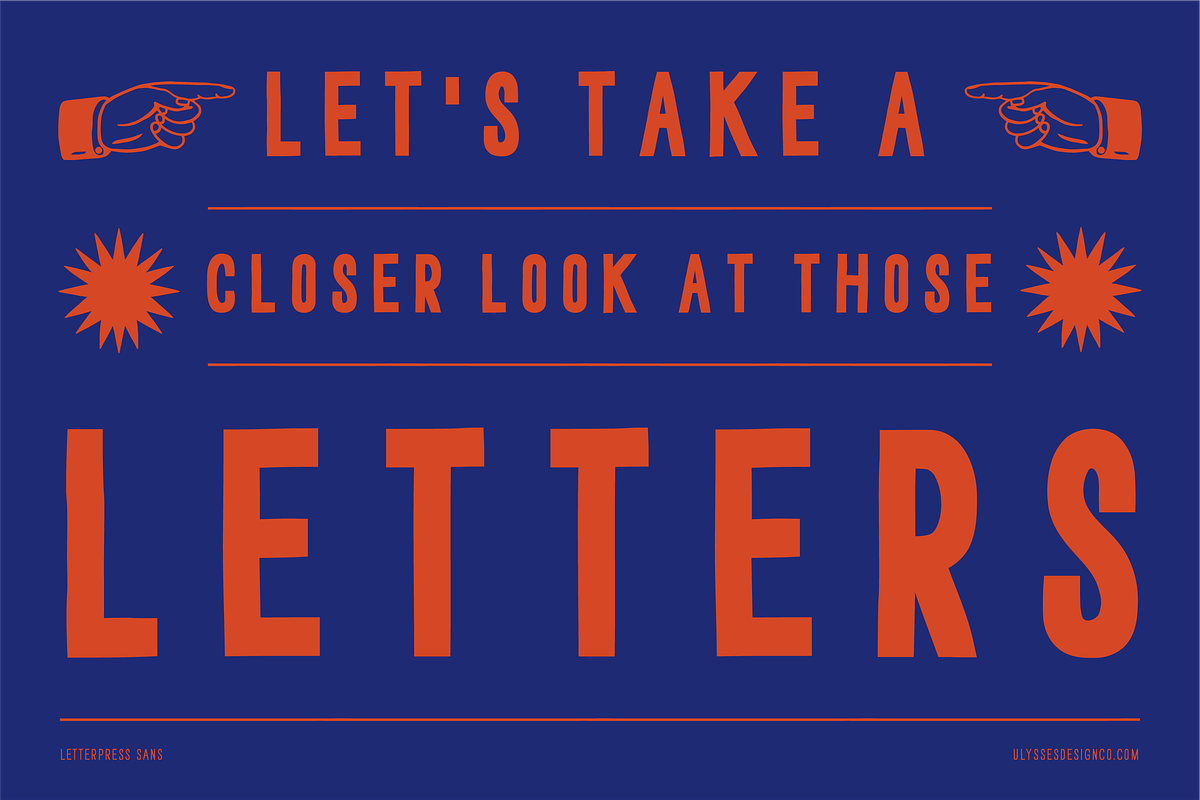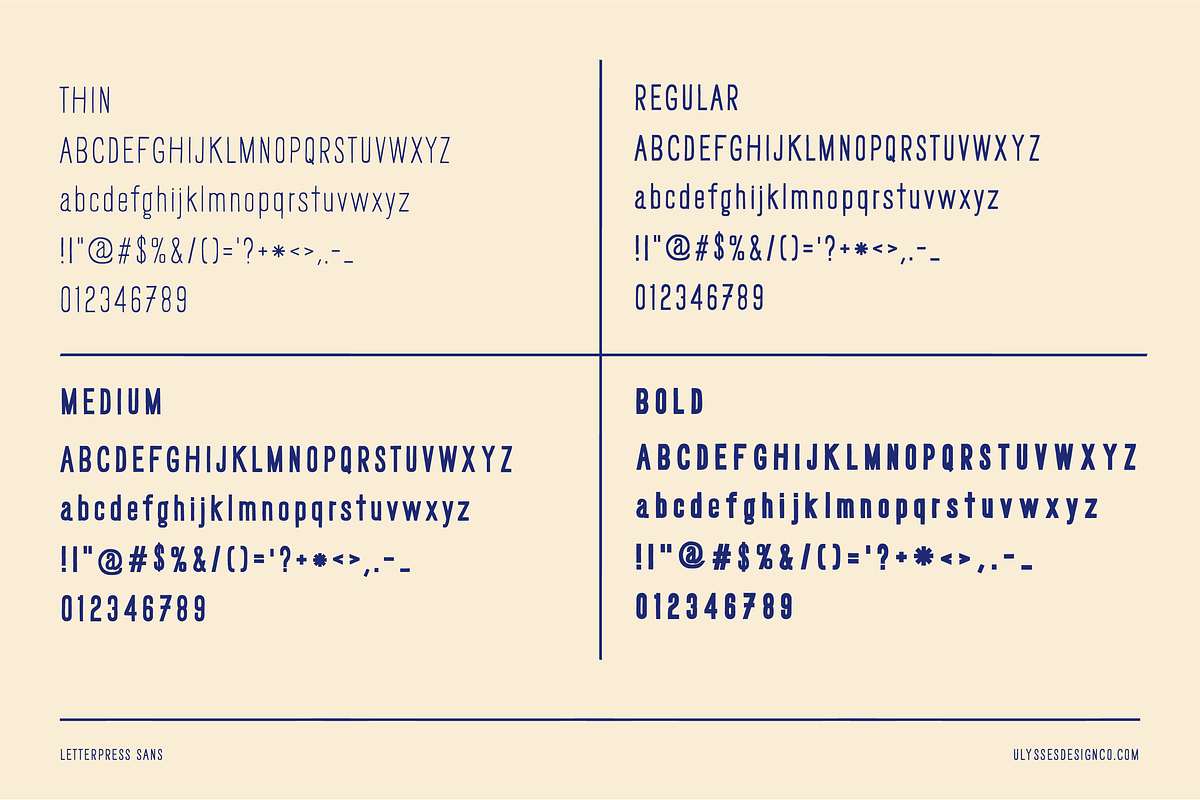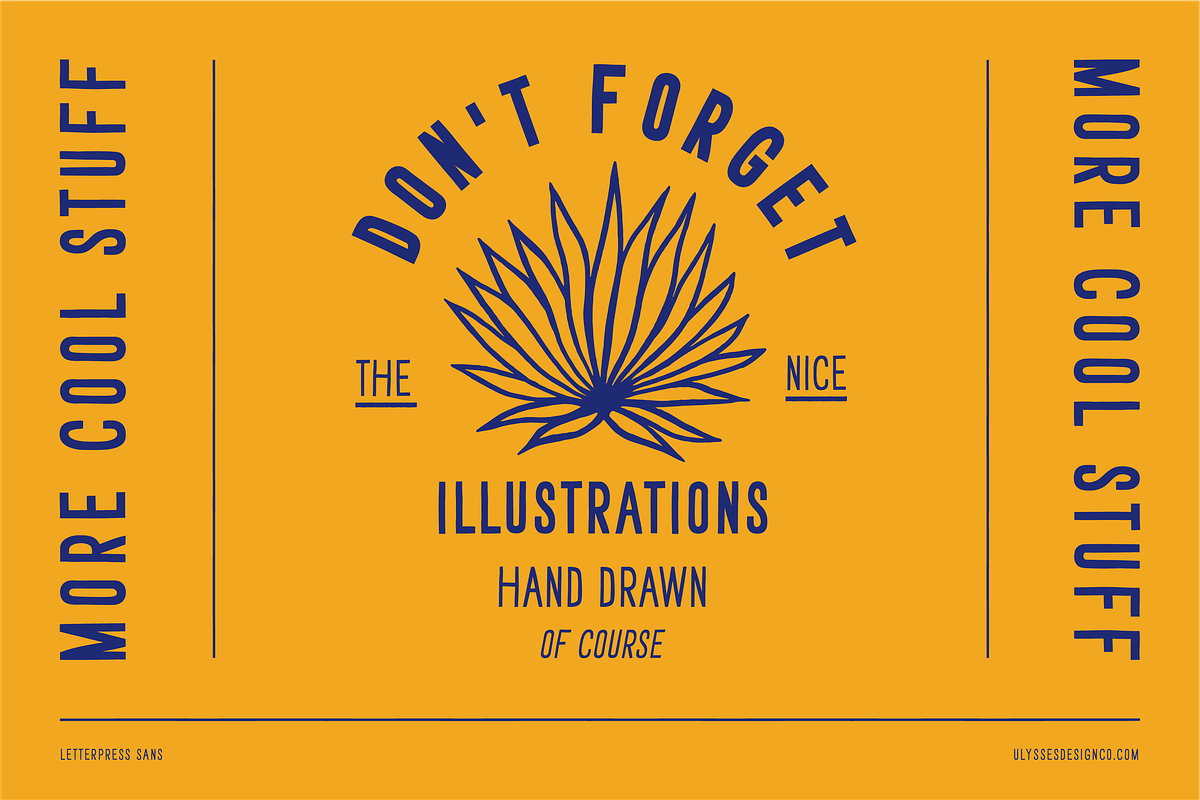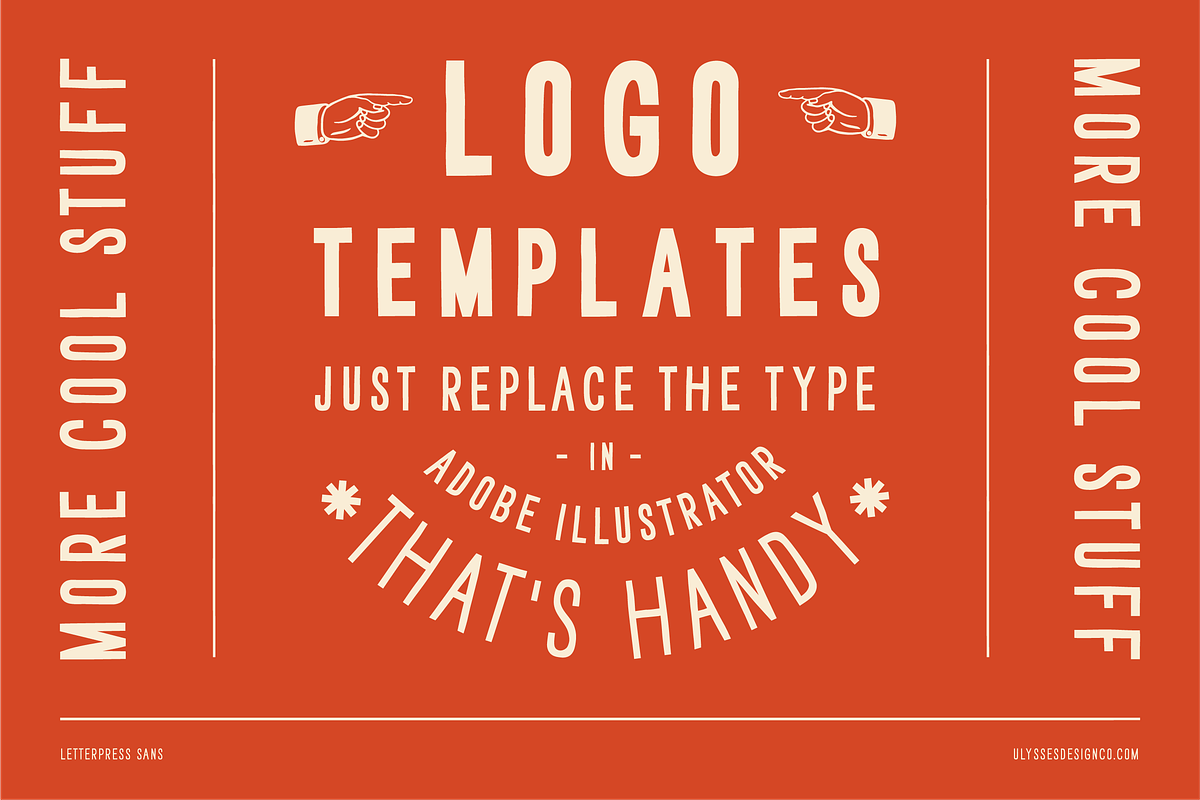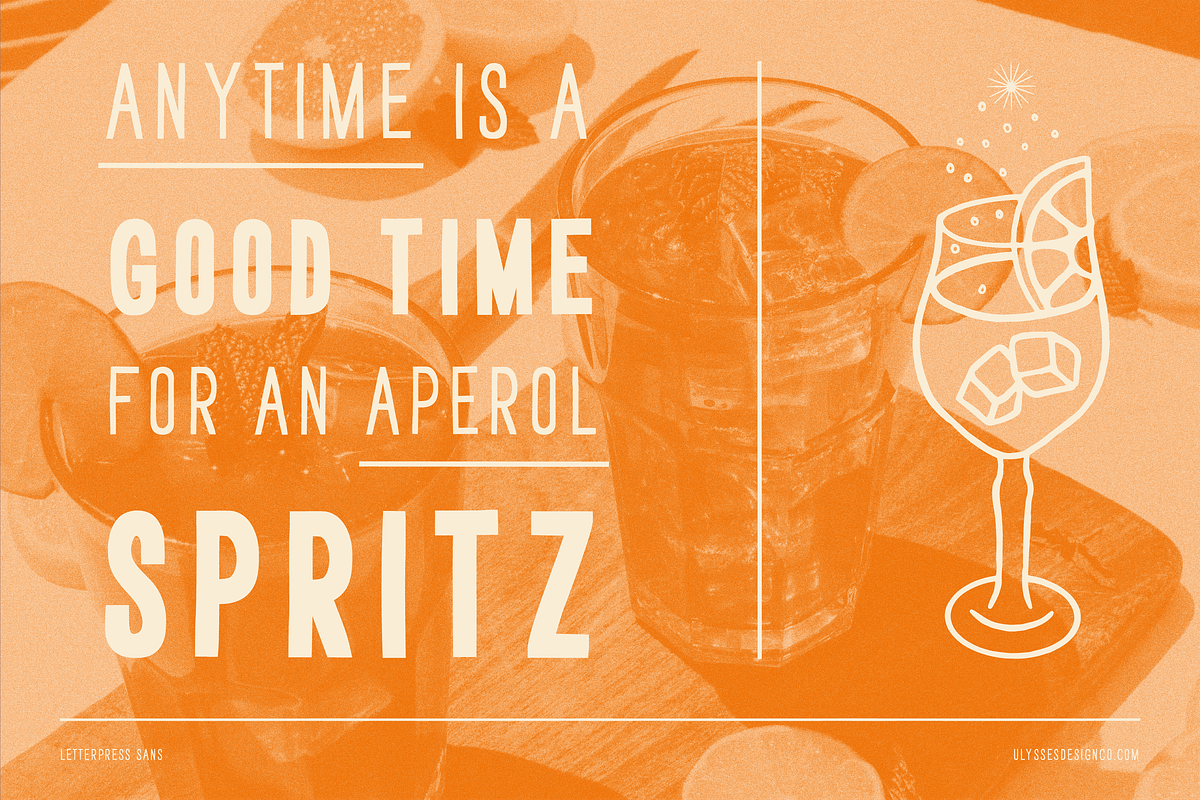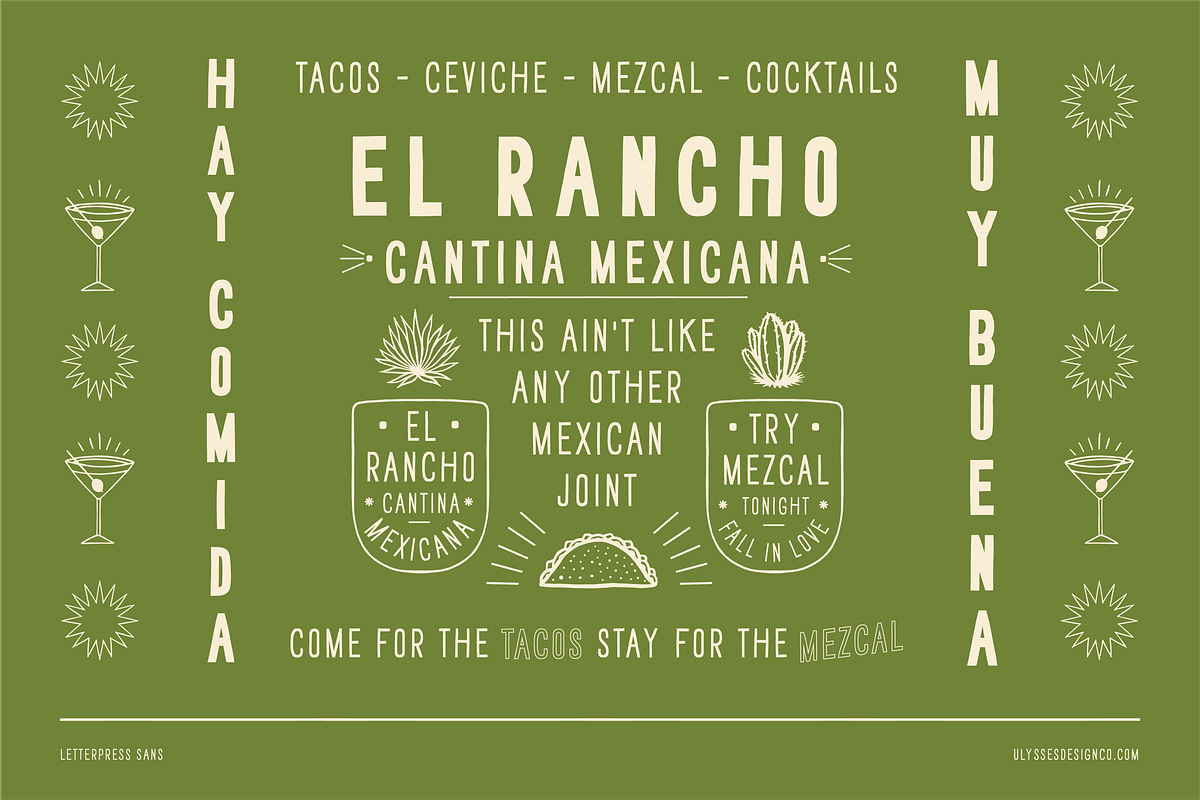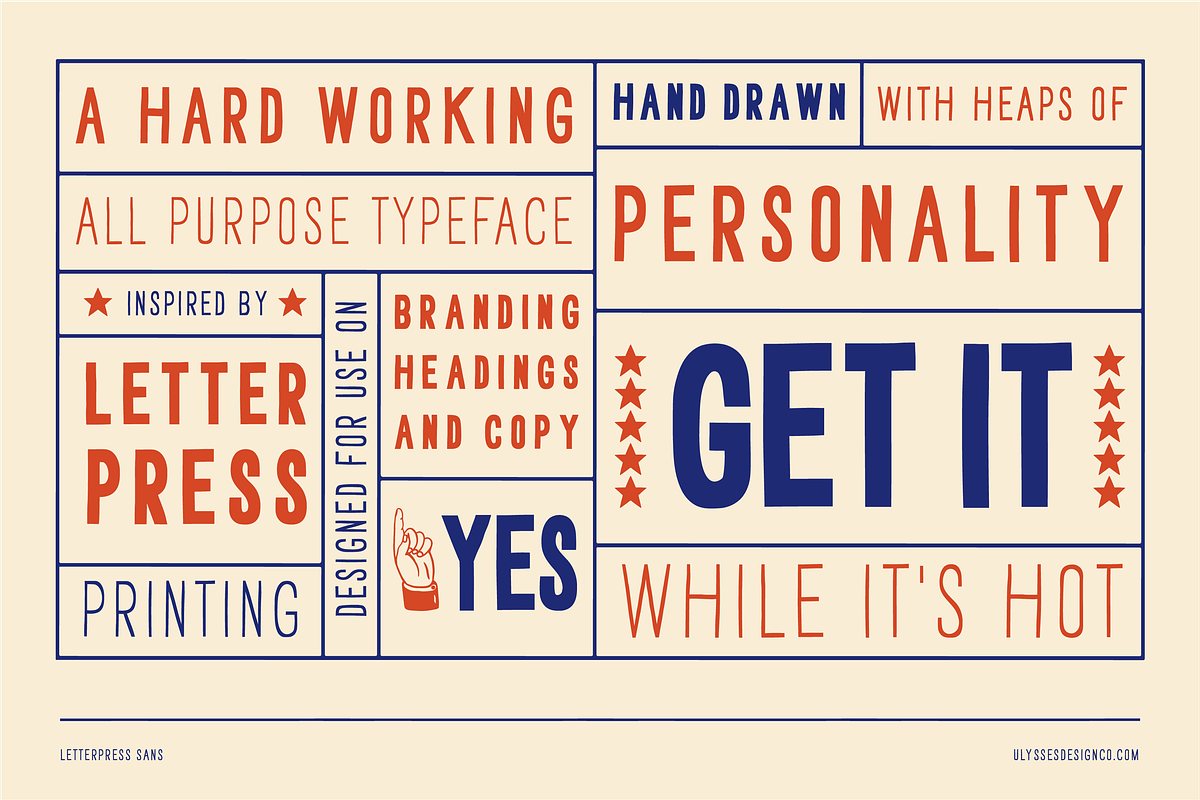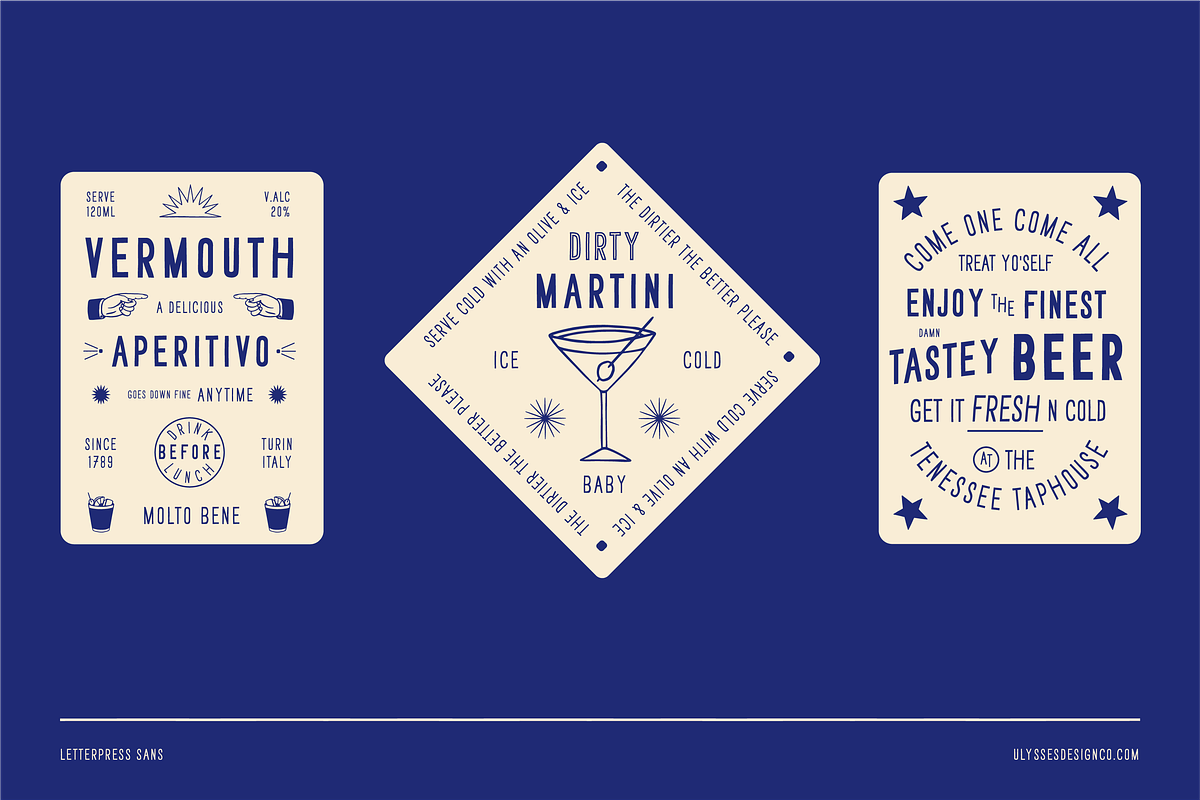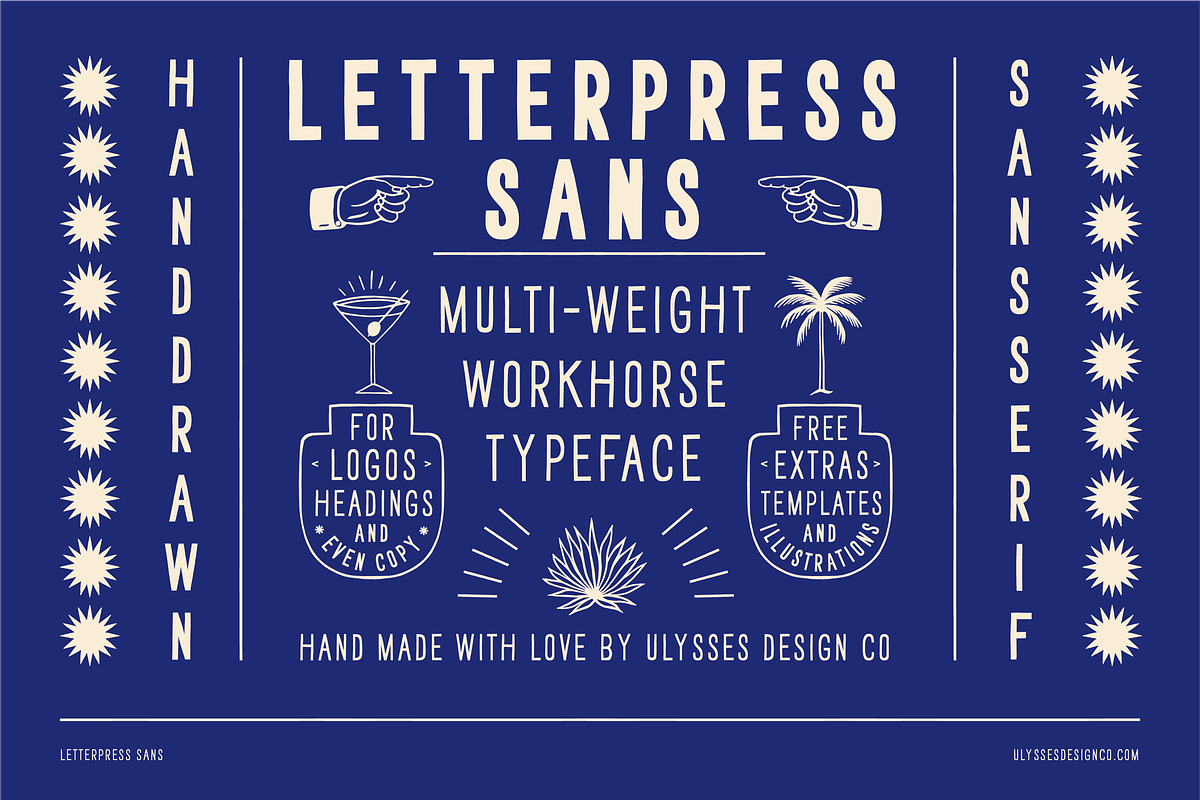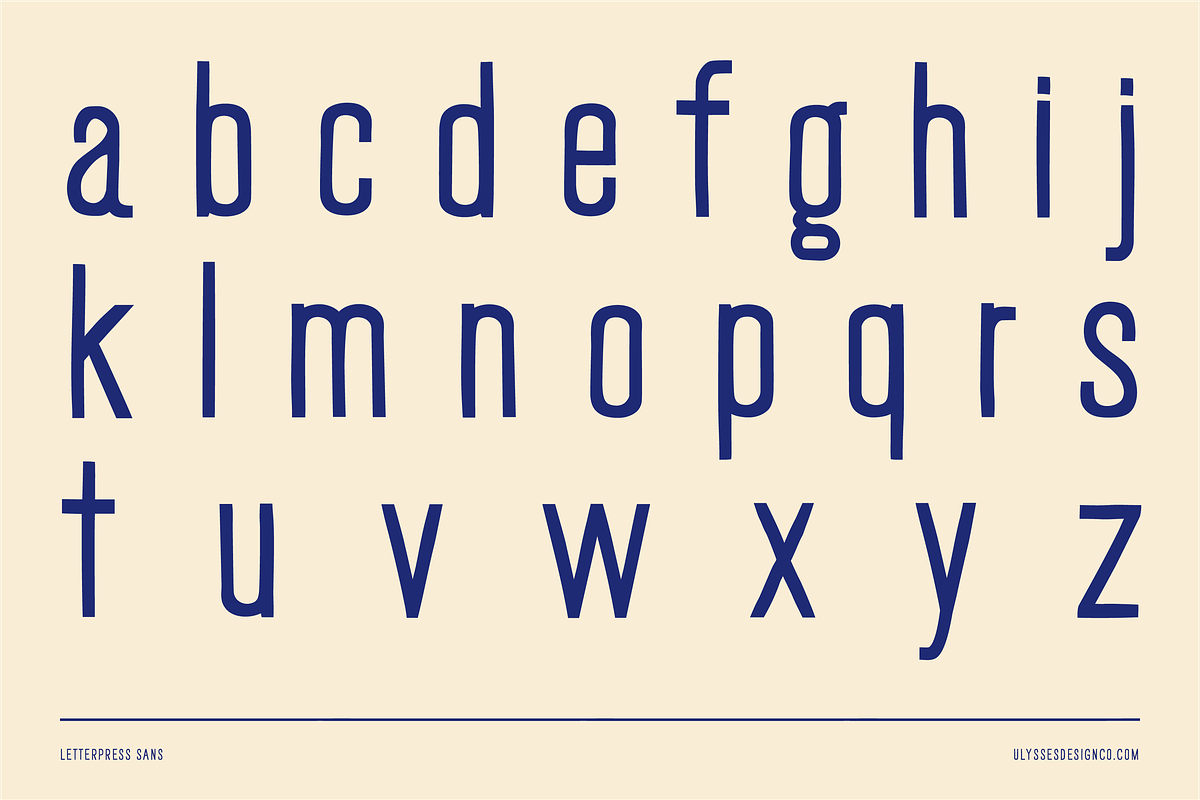
Letterpress Sans
Letterpress Sans is a hand drawn, vintage, sans serif typeface with multiple weights, illustrations, logo templates and heaps of personality.
Letterpress Sans comes in 4 weights giving you the flexibility to create dynamic and cohesive design work for your projects. Perfect for use on branding, headings and copy.
Add personality and authenticity to your design work with this hand drawn, vintage letterpress inspired sans serif typeface.